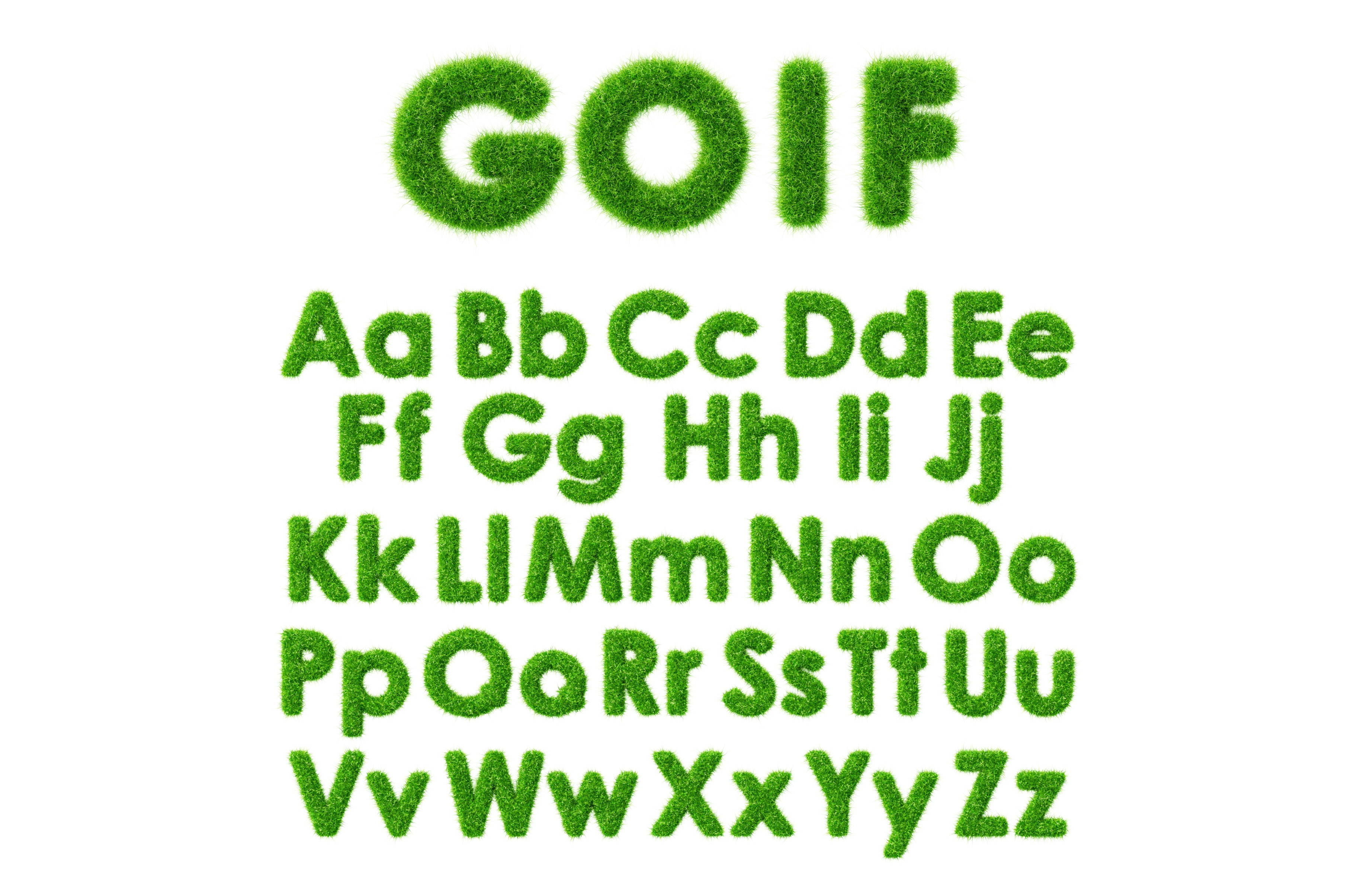
3d golf text, green grass font of
3d golf text, green grass font of alphabet render. Fresh plant uppercase and lowercase letters with soft fluffy herb texture. Lawn type effect for golf club or sport tournament design. 3D illustration